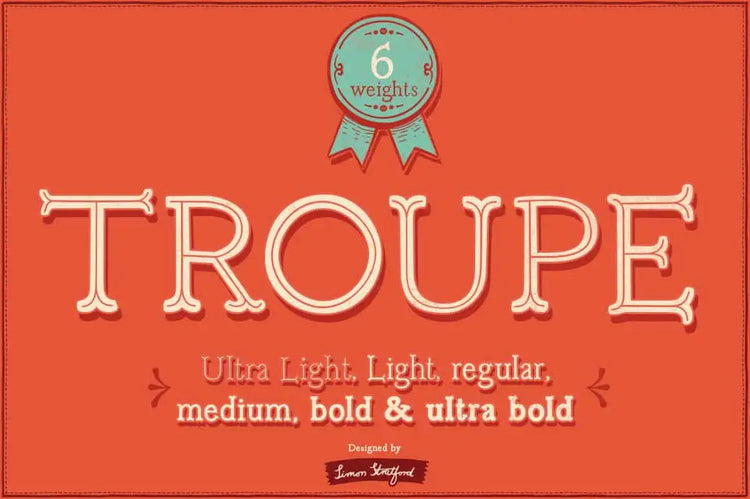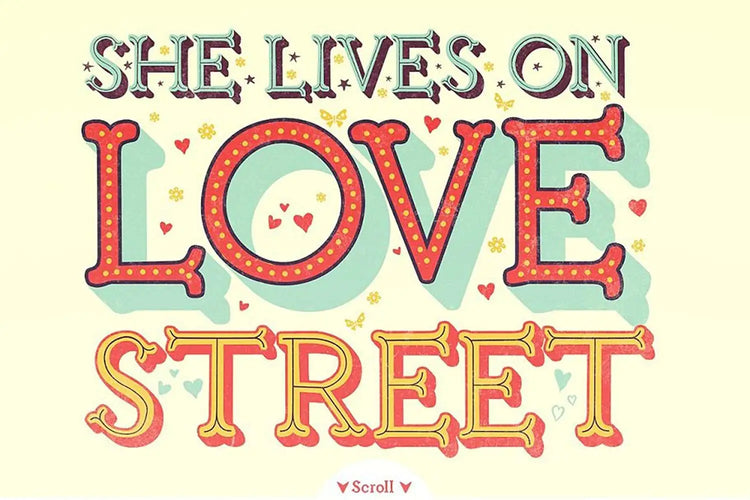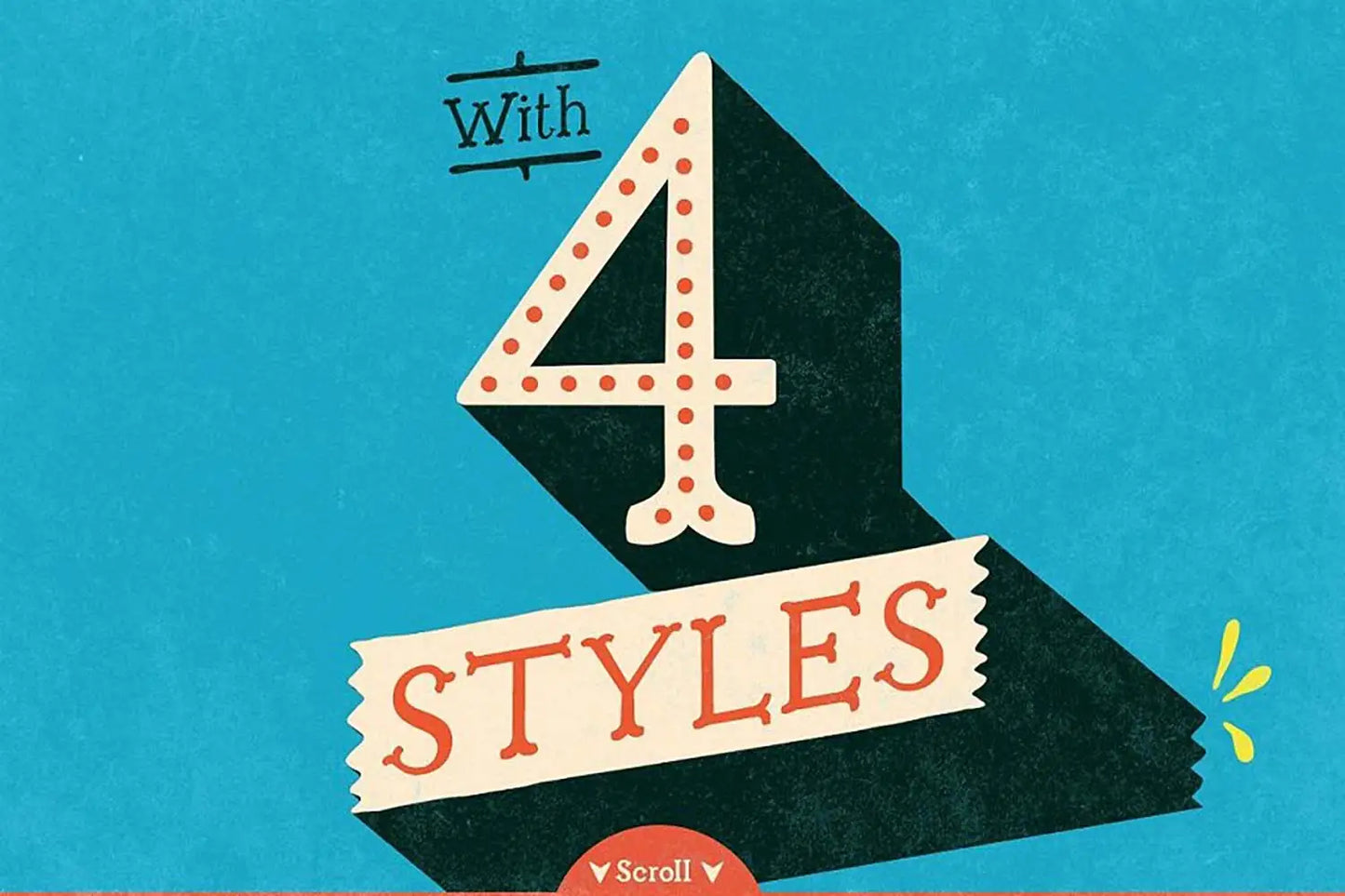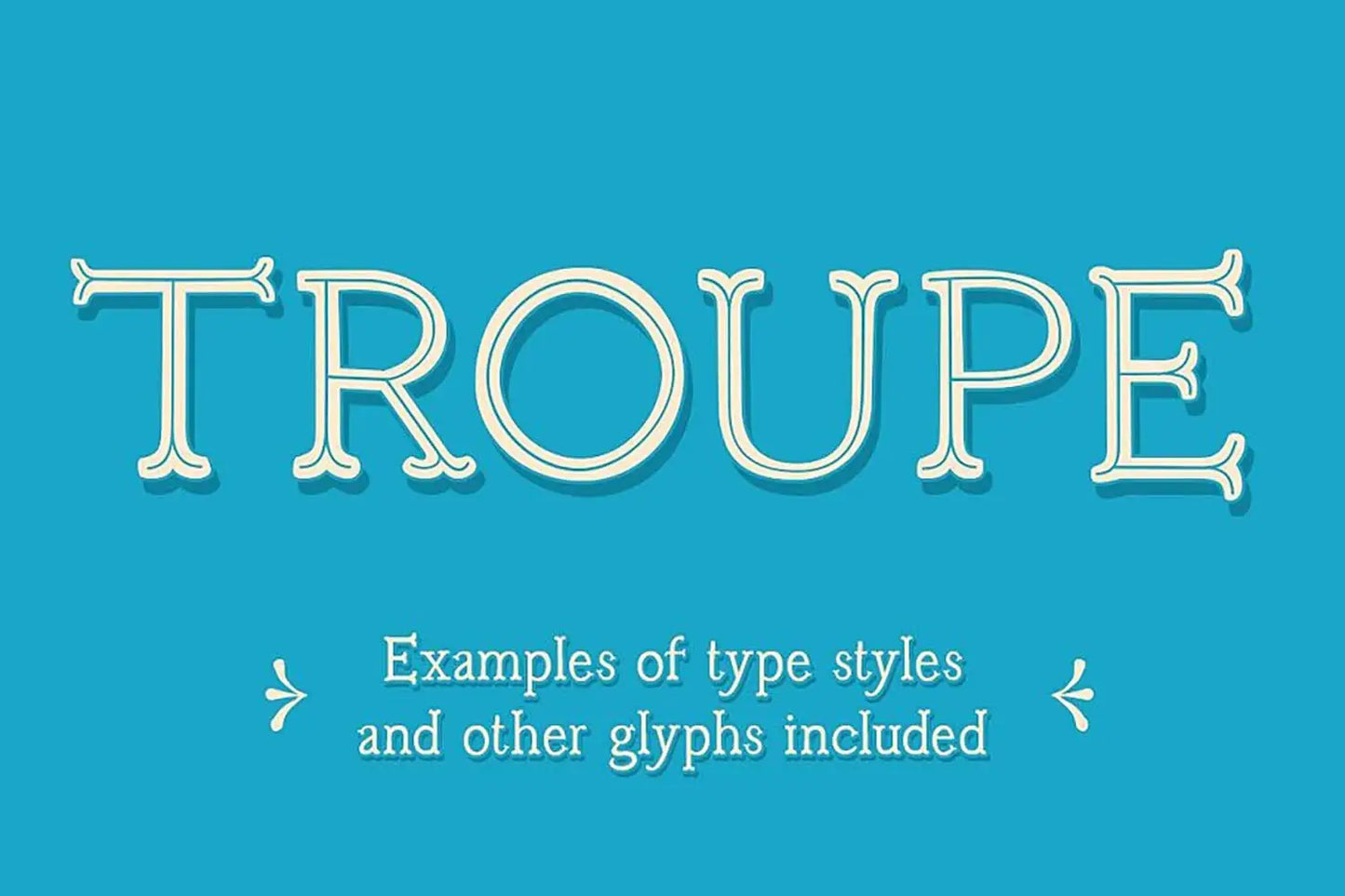
Troupe — Quirky Ornate Display Serif Font
About Troupe
Troupe is a cheeky and quirky little font that has a feeling of traditional hand-painted lettering. It has six weights and four styles.
The font has been inspired by hand-drawn letterforms, old circus posters, and hand-painted signs. Surprisingly, it’s not a script font.
It's got this effortlessly playful swagger that gives your text a fresh, edgy twist.
Whether you're revamping your website, crafting posters, or adding a touch of attitude to your branding, Troupe is your ticket to a font that keeps things delightfully cheeky.